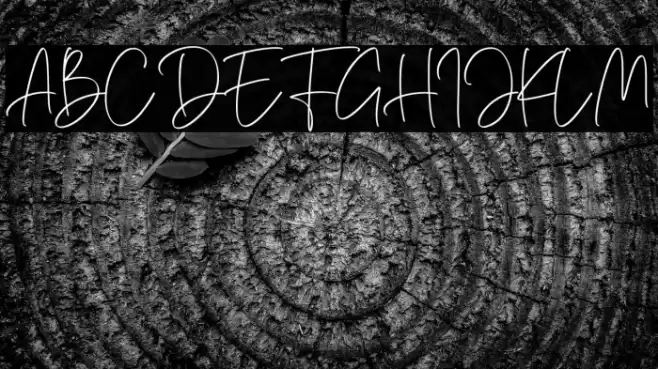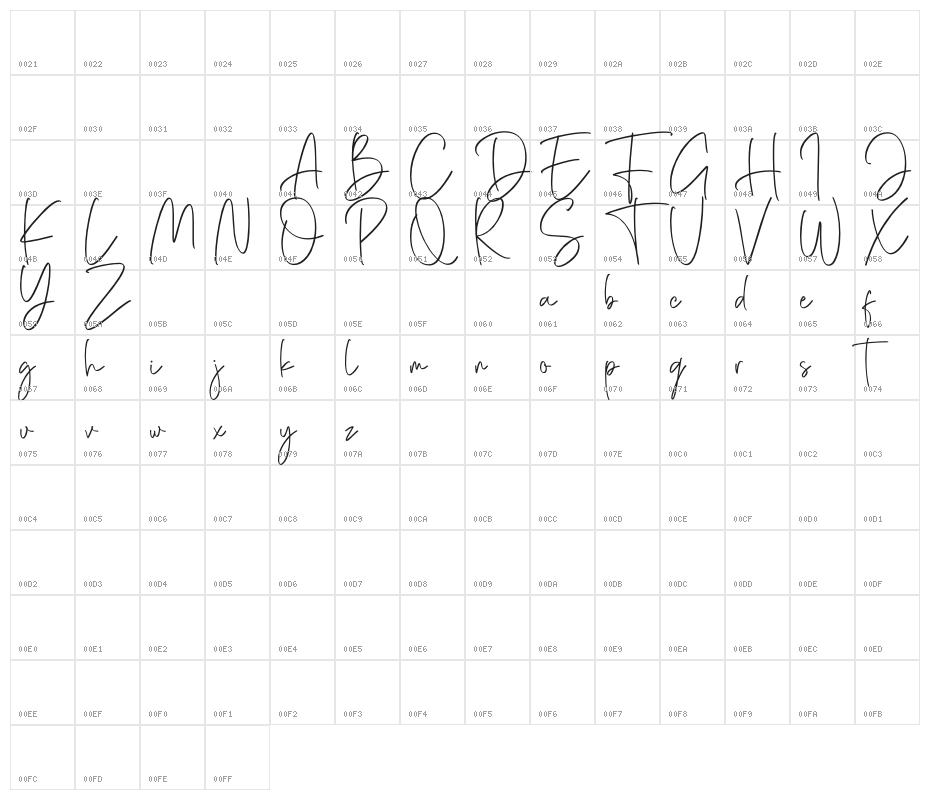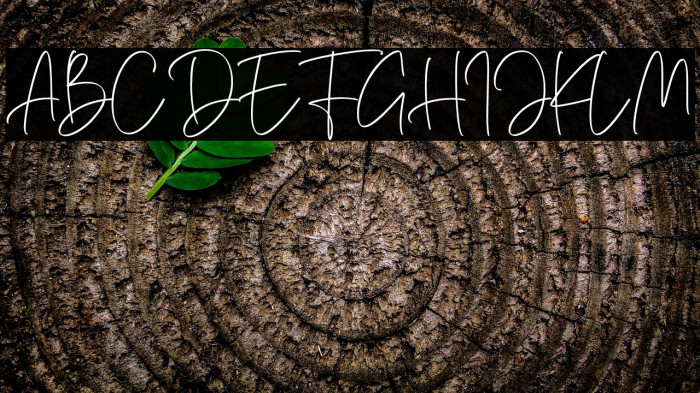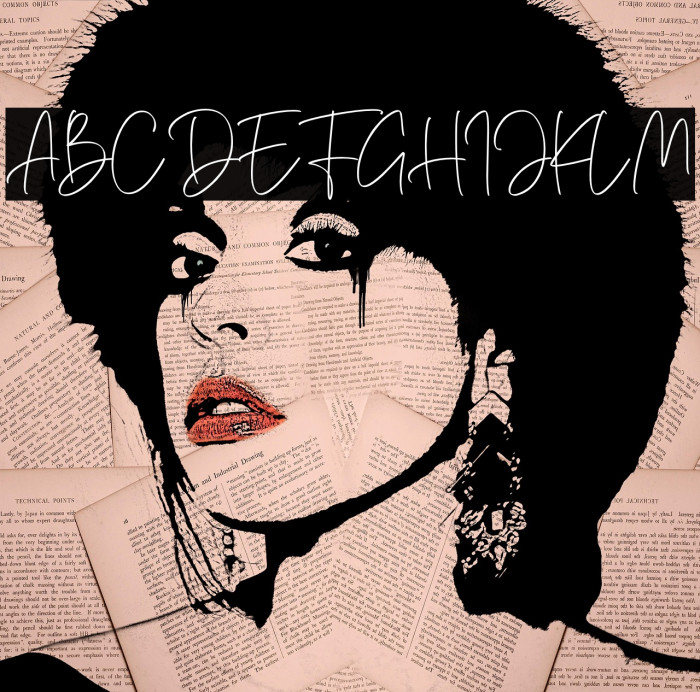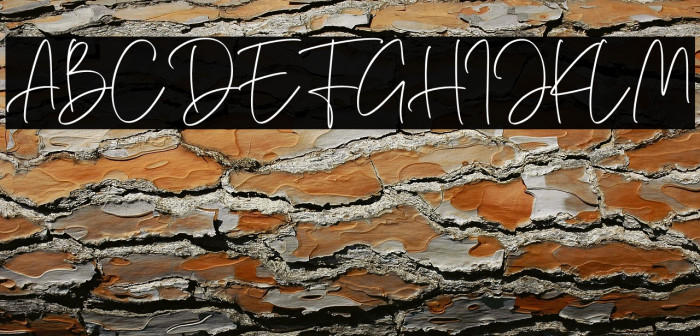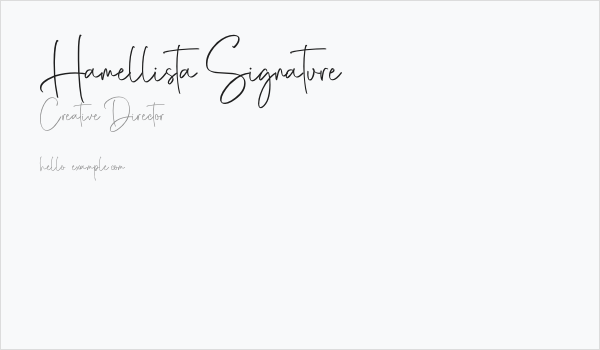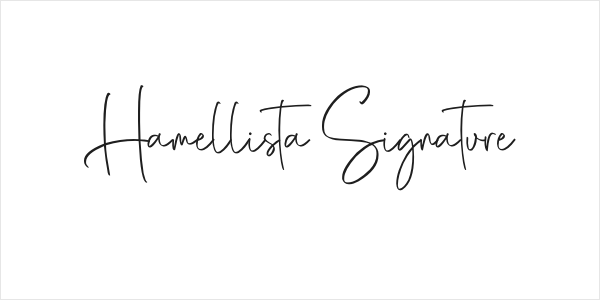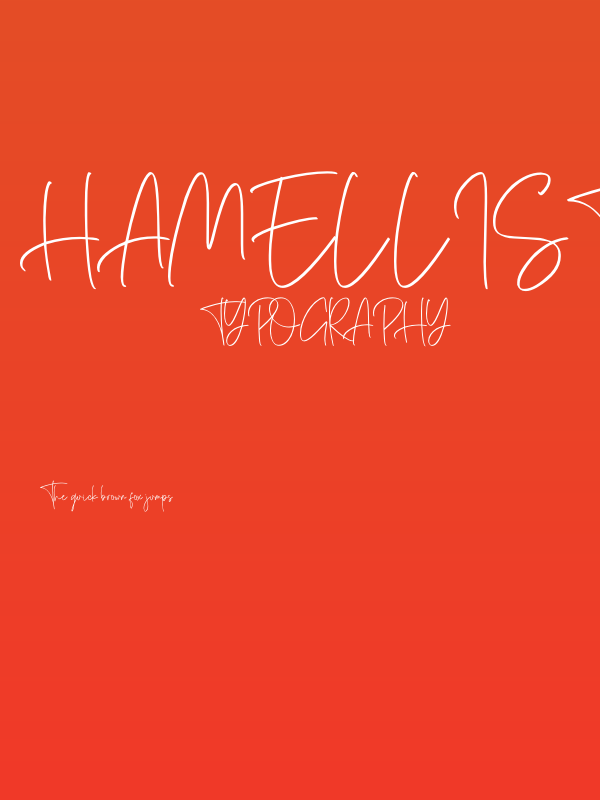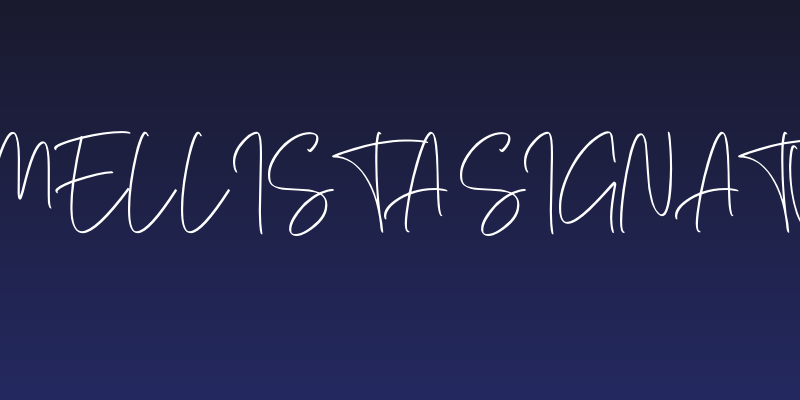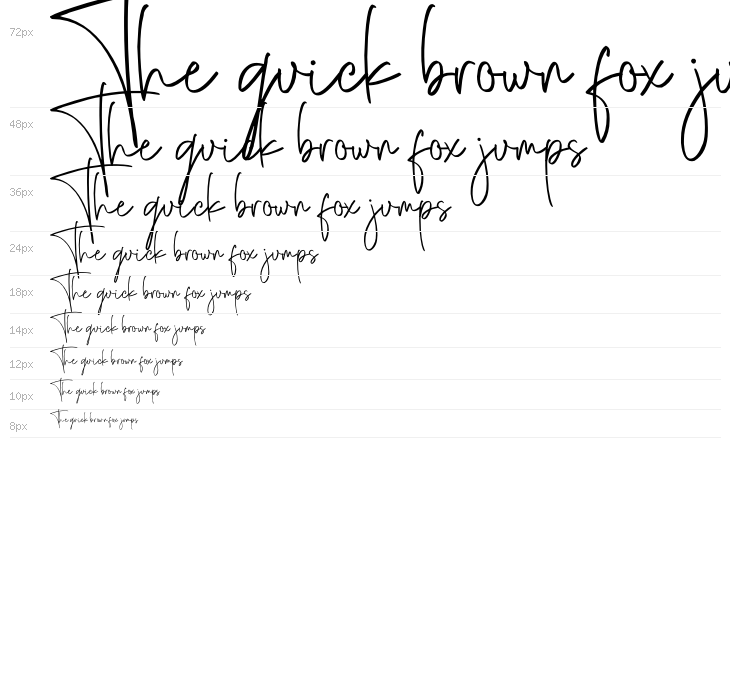
Hamellista Signature Font
Hamellista Signature Description
This font exudes a modern and elegant handwritten style, characterized by its fluid and continuous strokes that mimic the natural flow of handwriting. The uppercase letters are tall and slender, with a slight slant that adds a dynamic feel. The lowercase letters maintain a consistent style, with some letters featuring unique loops and curves that enhance its signature-like appearance. The overall design is both sophisticated and approachable, making it suitable for a variety of creative applications. The font's organic and personal touch is ideal for projects that require a human element, such as invitations, personal branding, or artistic endeavors.
A modern, elegant handwritten font with fluid, continuous strokes from Uncategorized fonts.
- Proposed Projects: Ideal for invitations, personal branding, artistic projects, and any design requiring a personal touch.
- Use Case: Logos, Invitations, Personal branding